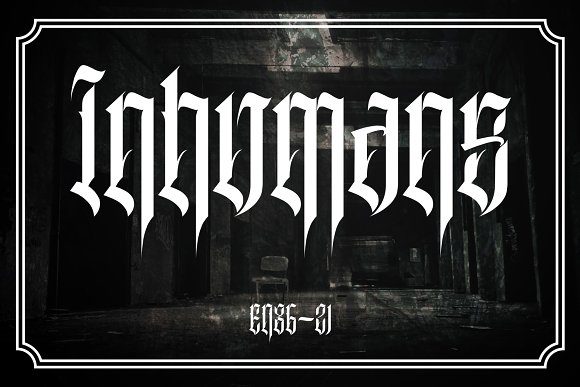
Unleash the enigma of Inhumans, a blackletter font that weaves a tapestry of mystique and enchantment. This font, conjured by the creative genius of EN86-21, is a testament to the power of darkness and the allure of the unknown.
Inhumans possesses a haunting beauty, its letters dripping with an otherworldly aura. Each letterform is a macabre masterpiece, crafted to evoke a sense of awe and trepidation. This font will add a touch of darkness to your designs, whether you're creating logos, posters, or invitations.
Let Inhumans be your guide into the realm of the mystical. Its intricate details and captivating style will transport you to a world of shadows and secrets, where the imagination runs wild. This font will cast a spell on your audience, leaving them spellbound by your designs.
With Inhumans, you'll have the power to command attention and create designs that leave a lasting impression. Its dark and mysterious aesthetic will set your work apart from the mundane and ordinary. You'll be able to create designs that speak to the soul, designs that resonate with the deepest parts of the human psyche.
Inhumans is more than just a font; it's an experience. It's a journey into the realm of the unknown, where the boundaries of creativity are pushed to their limits. Embrace the darkness and let Inhumans take you on a journey that will redefine your design aesthetic.